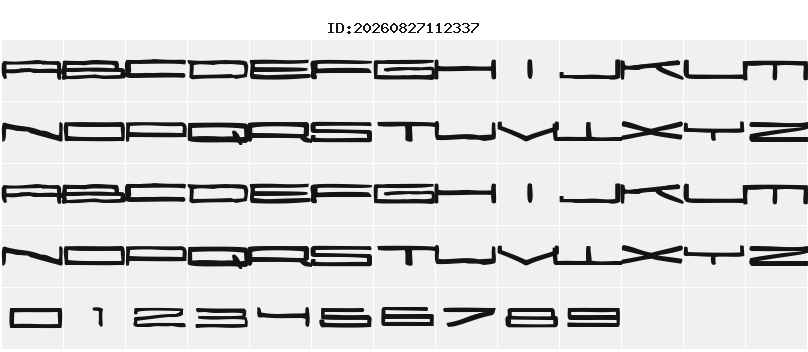
25000.ttf is a modern, elegant sans-serif font designed for ultimate readability and visual harmony. Perfect for branding, headlines, web design, and print materials.